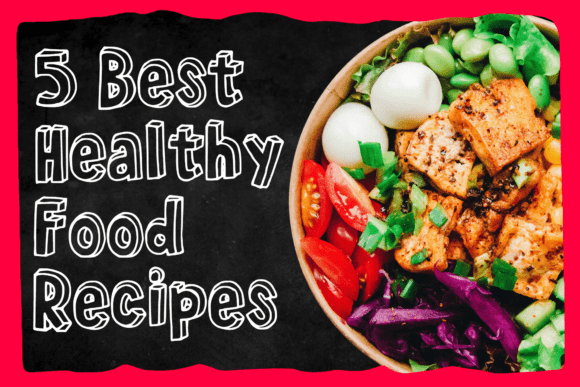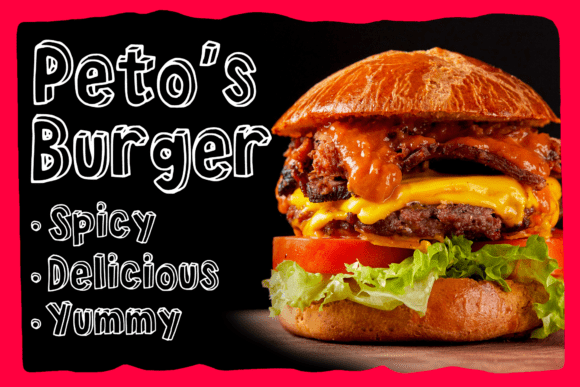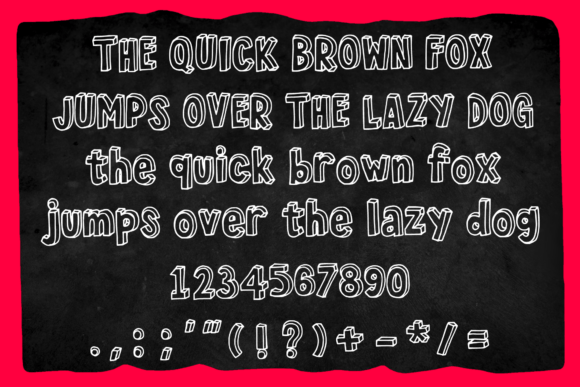
The Ultimate Guide to Chalk 3D Font: Elevate Your Designs with a Fun and Cool 3D Handdrawn Font
I’ll never forget the time I was working on a project for a client’s kids’ party, and I needed a font that would make the invitations look fun and playful. I scoured the internet, tried out dozens of fonts, but nothing seemed quite right. That was until I stumbled upon the Chalk 3D font. It was love at first sight! ✨ The way it mimicked natural chalk writing and drawing was exactly what I needed to bring the design to life.
What Makes Chalk 3D Font So Special?
Chalk 3D is a fun and cool 3D handdrawn font inspired by natural chalk writing and drawing, making it perfect for school projects, stickers, t-shirt designs, logo designs, magazine or book covers, comics, cartoon drawings, and many more. This font is designed to add a super cool touch to your designs and elevate them to the highest level.
- ✨ Unique and playful 3D handdrawn design
- ✅ Highly versatile and suitable for a wide range of design projects
- ✅ Easy to read and understand, even in smaller font sizes
- ✅ Works well with both light and dark backgrounds
- ⚠️ Some characters may require manual kerning for optimal spacing
- 🤔 Limited language support, mainly focused on English and basic Latin characters
- Explore the OpenType features and glyphs to add more variety to your text, such as stylistic alternates and ligatures.
The Designer Inspiration Behind Chalk 3D Font
The creator of Chalk 3D font was inspired by the classic look of chalk writing on a blackboard. They wanted to capture the playful and imperfect nature of chalk art and bring it to digital design. The result is a font that’s both fun and functional, perfect for a wide range of design projects.
Q: Is Chalk 3D font suitable for body text?
A: While Chalk 3D font is highly legible, it’s best suited for headlines, titles, and short paragraphs. For longer body text, a more traditional font might be more suitable.